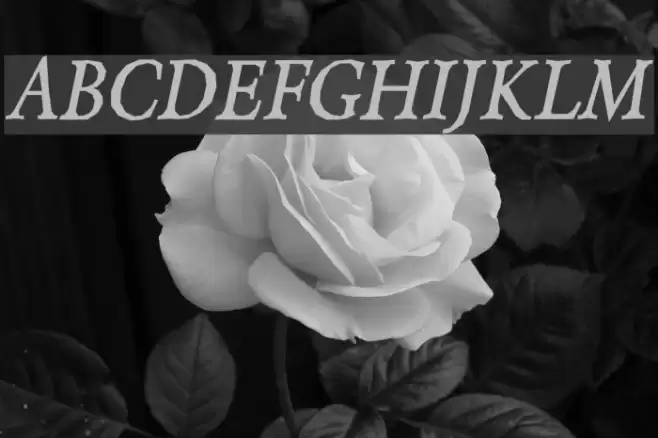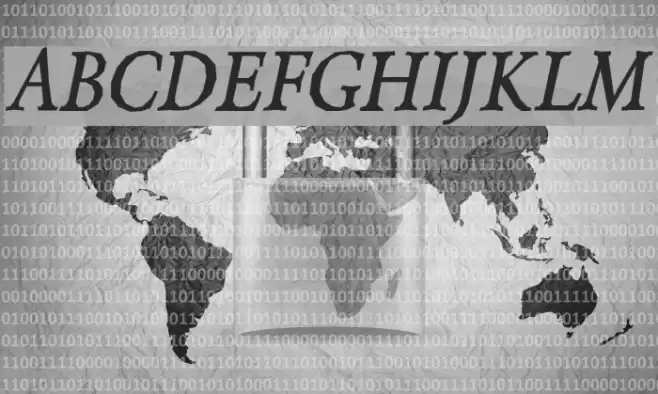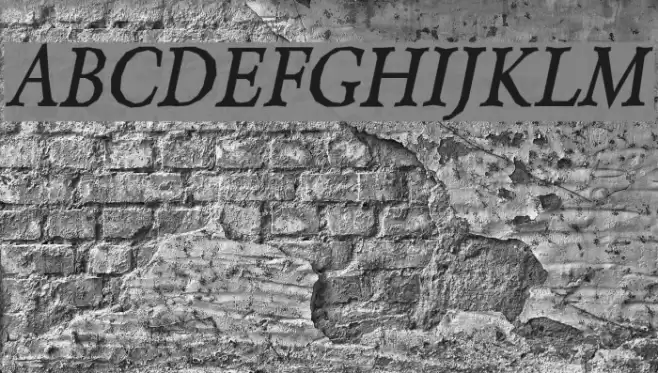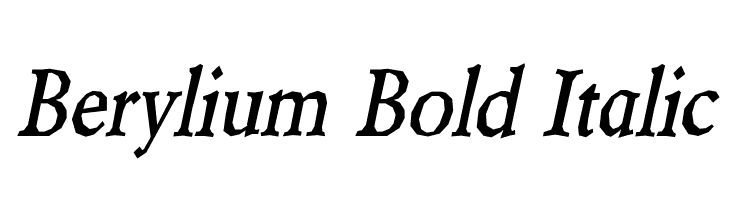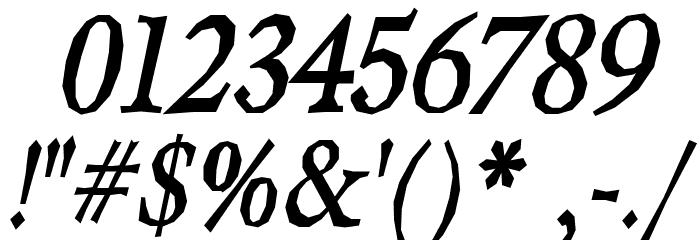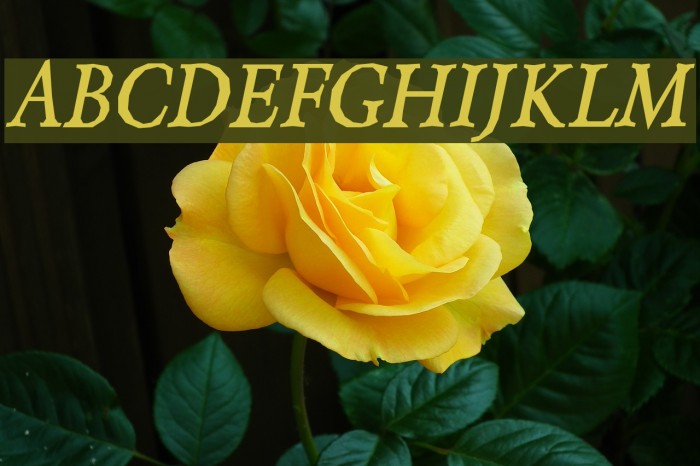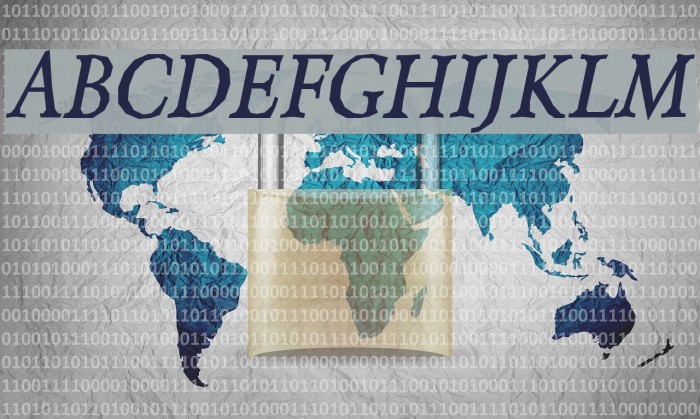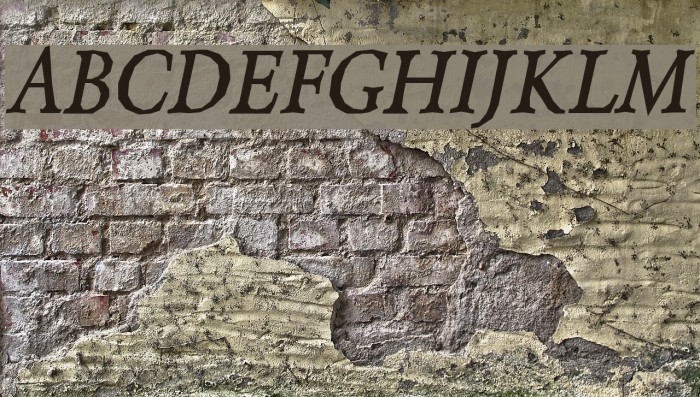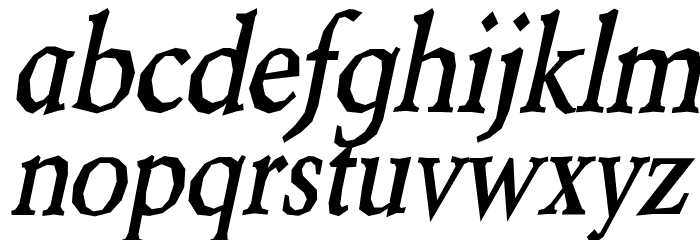
Berylium Bold Italic Font
Berylium Bold Italic Description
This font exhibits a dynamic and bold italic style, characterized by its sharp serifs and pronounced slant. The uppercase letters are tall and commanding, while the lowercase letters maintain a consistent flow with slightly exaggerated curves. The numerals are robust and align well with the overall aesthetic, providing a cohesive look. Special characters are crafted with the same attention to detail, ensuring versatility in various design contexts. The font's strong presence makes it suitable for impactful headlines and titles.
A bold italic serif font with sharp serifs and a dynamic slant from Decorative fonts.